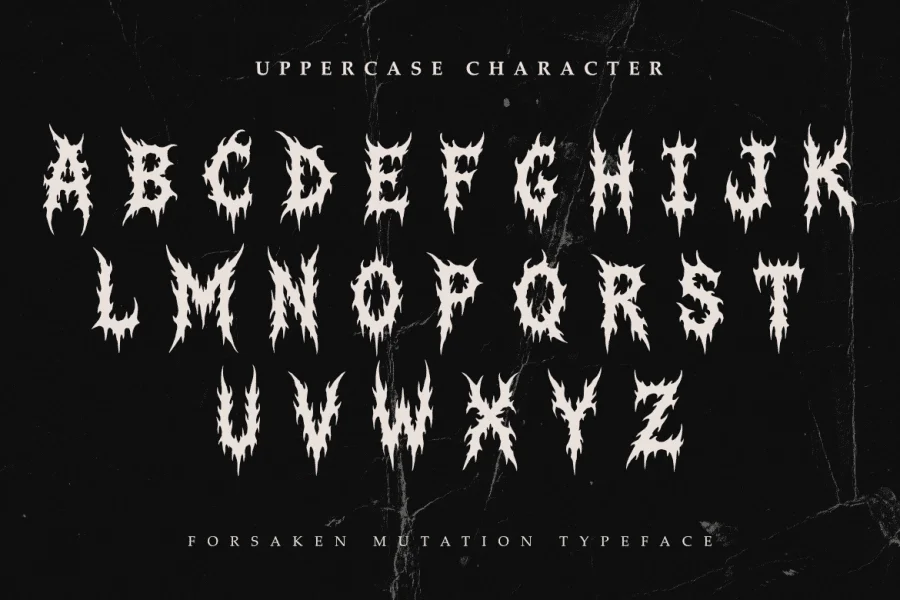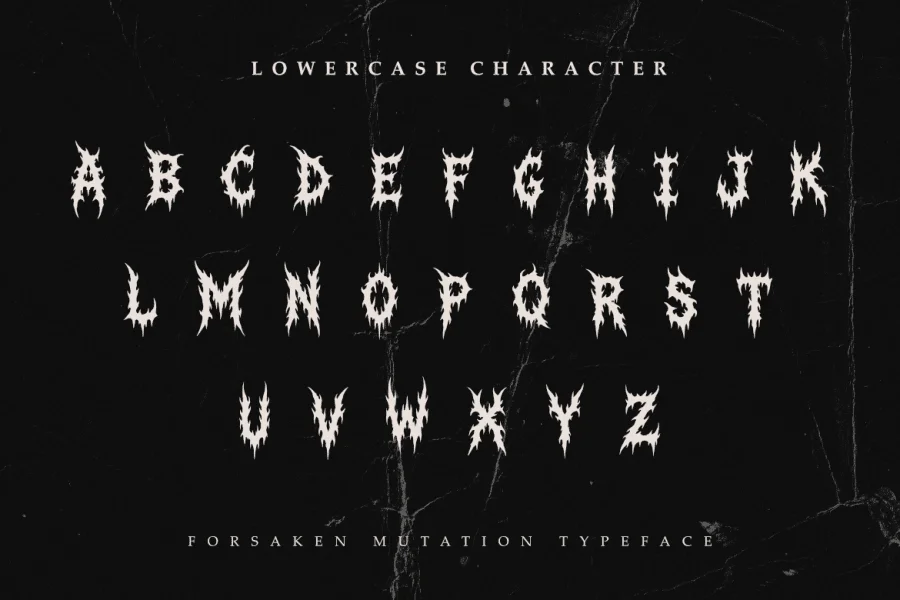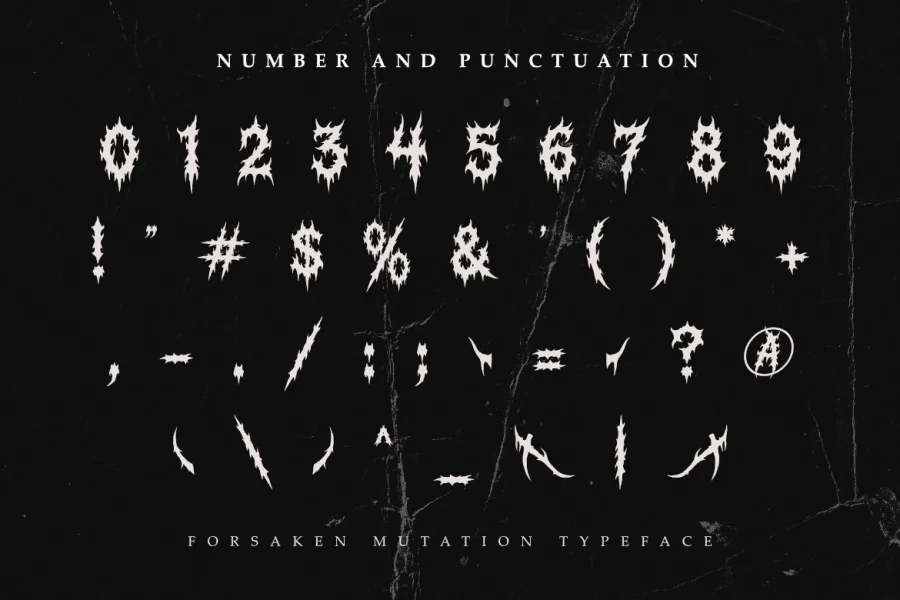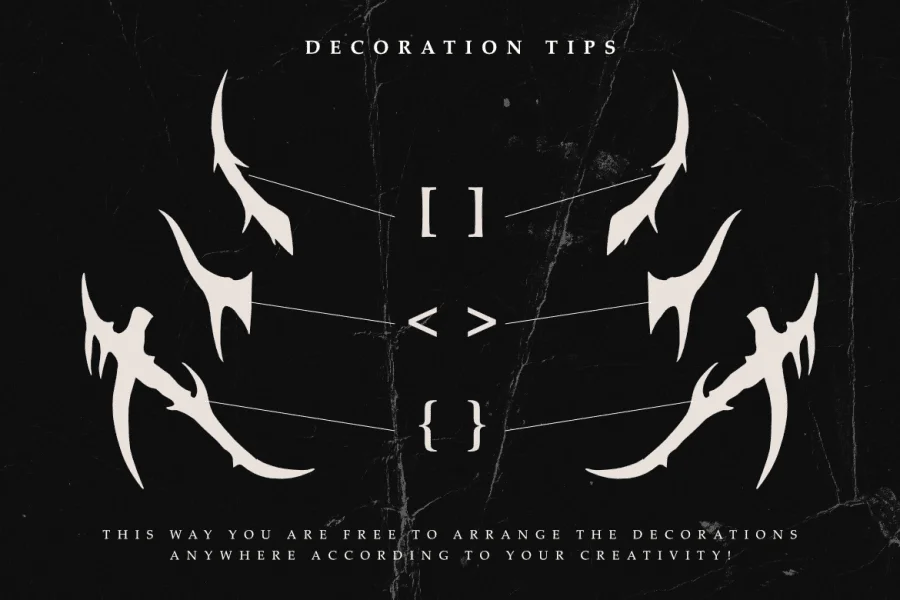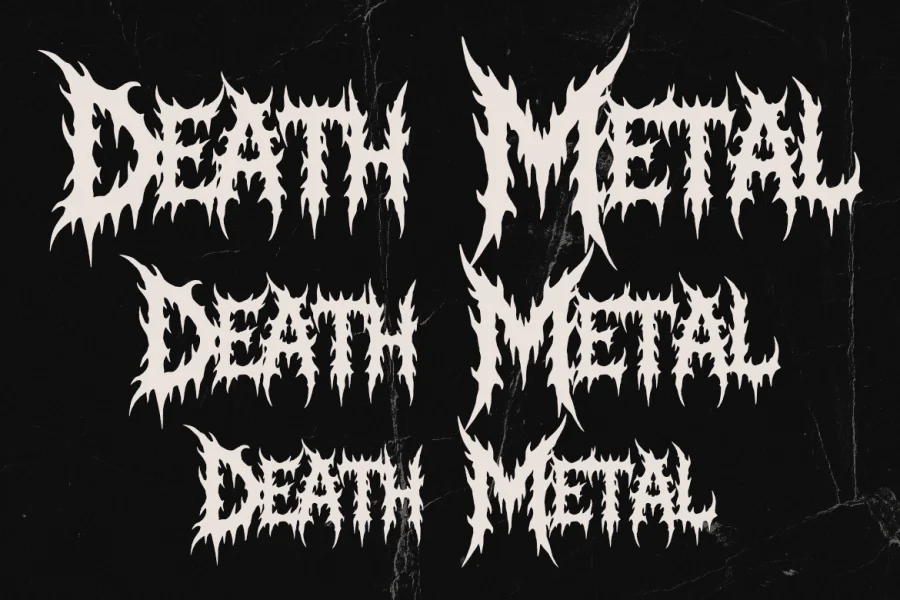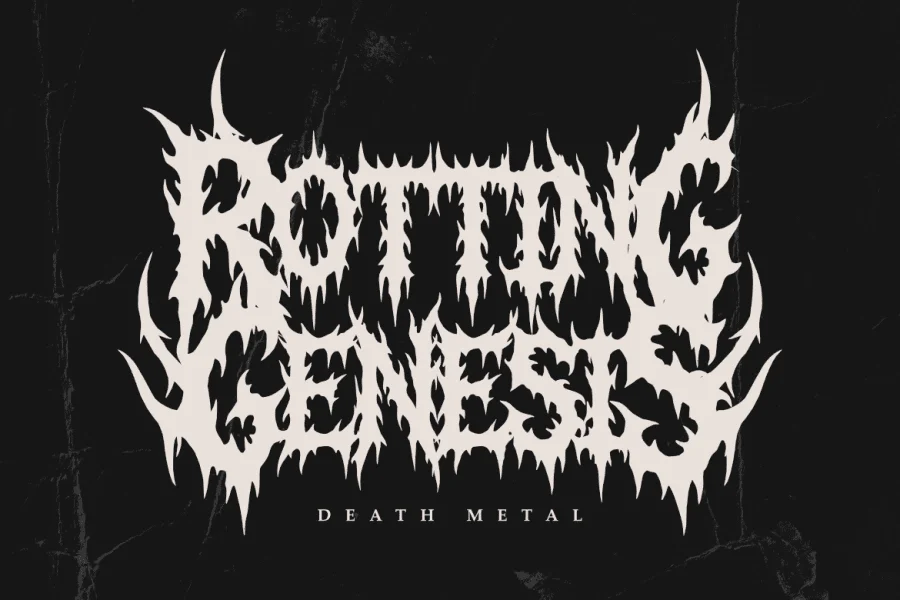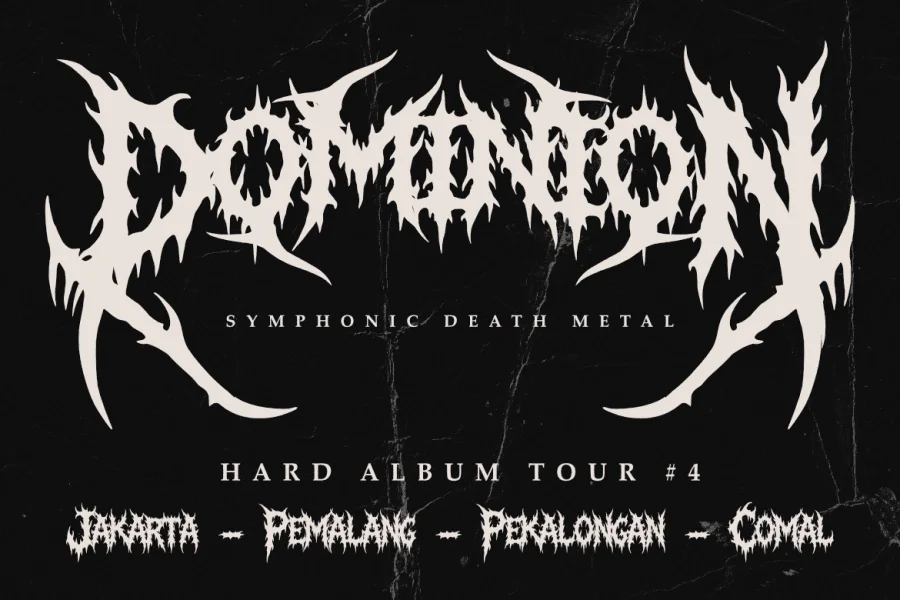
Forsaken Mutation is an aggressive, hyper-detailed display typeface designed to emulate the raw, visceral energy of extreme metal subcultures. Its construction is defined by jagged, thorn-like spikes, dripping organic textures, and razor-sharp terminals that completely obscure traditional letterforms into a complex, interlocking web of visual noise. The letters maintain a condensed, vertical posture, with low contrast and heavily distressed strokes that mimic hand-drawn, chaotic illustrations. Each character is dense and highly textured, creating a dark, atmospheric rhythm that prioritizes graphic impact over legibility.
This typeface is purpose-built for the extreme music industry, making it an ideal choice for death metal, black metal, and grindcore band logos, album cover art, and concert merchandise. It also excels in horror-themed branding, streetwear apparel designs, and edgy editorial layouts that require an uncompromising, underground aesthetic. The inclusion of customizable decorative flourishes, such as sweeping outer horns and root-like extensions, allows designers to frame text blocks and create cohesive, symmetrical emblem designs.